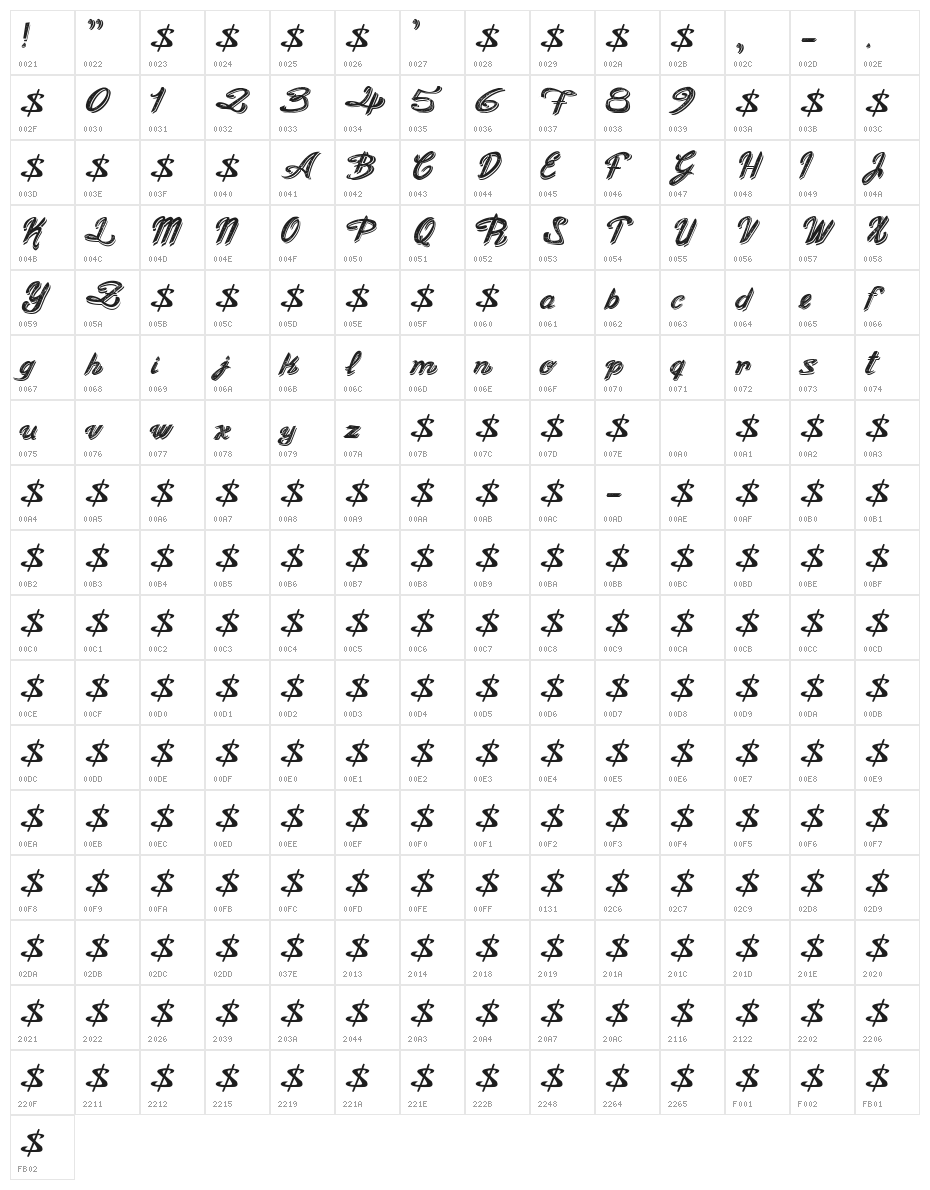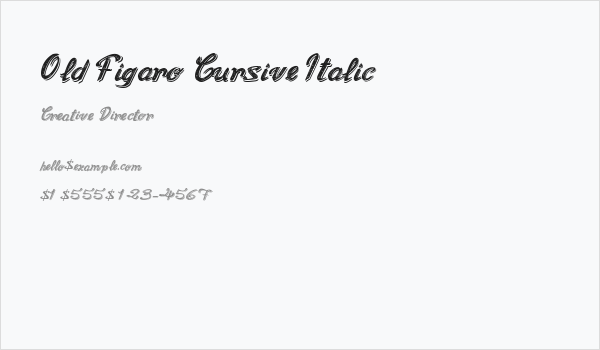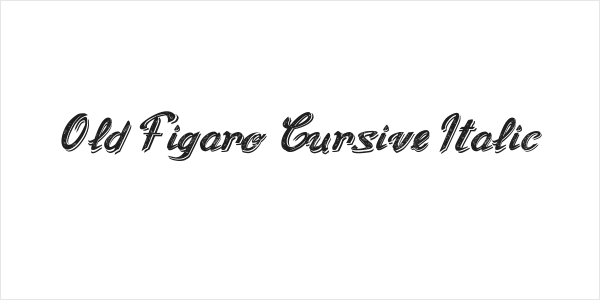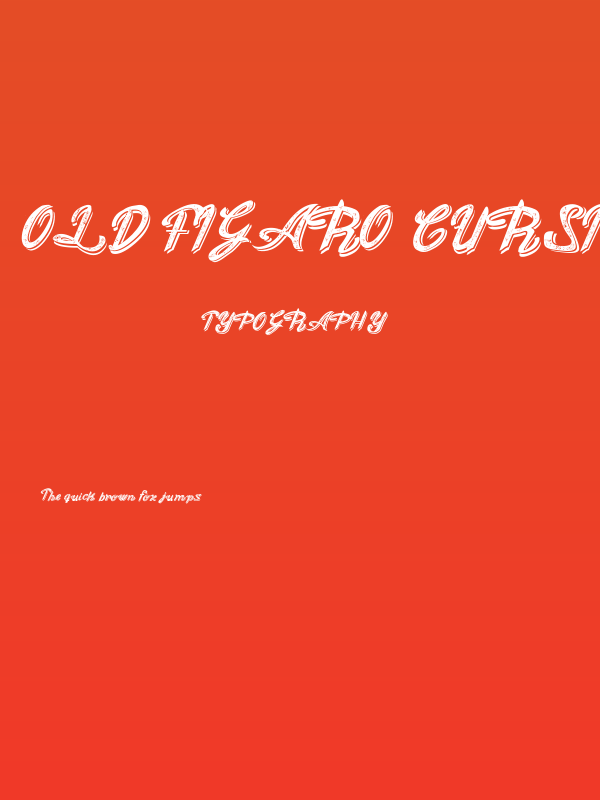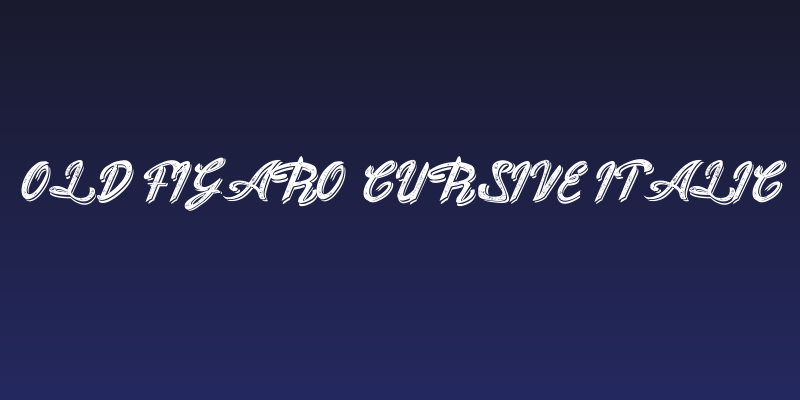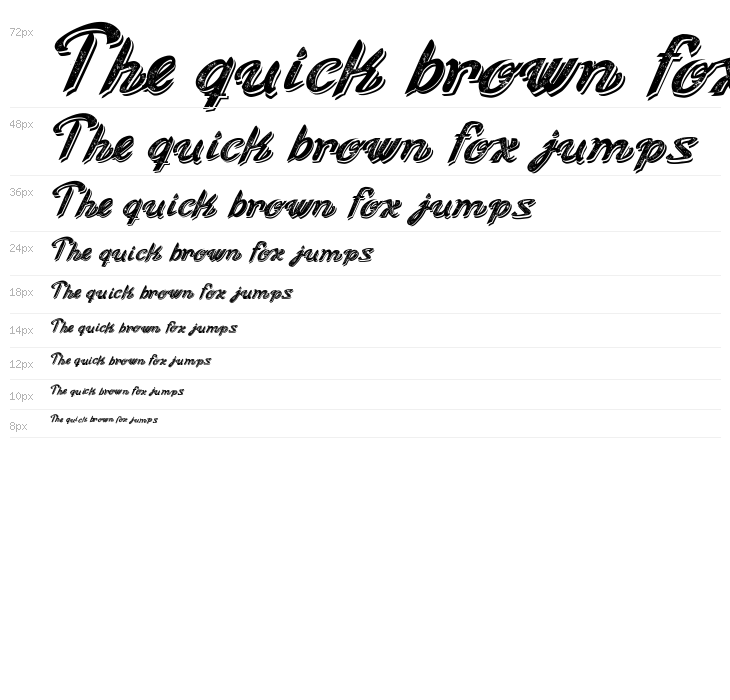
Old Figaro Cursive Italic Font
Old Figaro Cursive Italic Description
This font features a bold, cursive style with a distinct vintage flair. Each character is intricately designed with a textured, almost distressed appearance, giving it a unique, handcrafted feel. The uppercase and lowercase letters flow seamlessly, maintaining a consistent slant that enhances its cursive nature. Numbers and special characters are equally stylized, ensuring a cohesive look across all elements. The font's bold strokes and high contrast make it stand out, while the decorative elements add a touch of elegance and sophistication. Its overall style is reminiscent of classic calligraphy, yet with a modern twist that makes it suitable for contemporary designs.
| Proposed Projects | Ideal for wedding invitations, vintage-themed posters, branding, and logo design. |